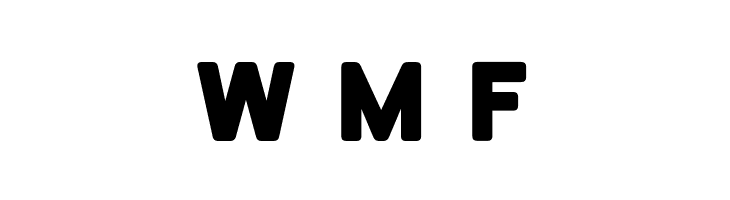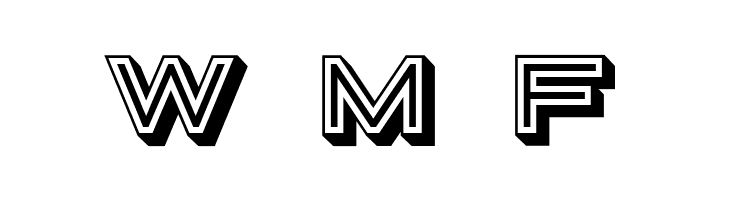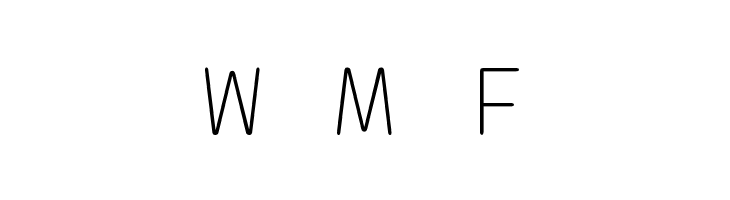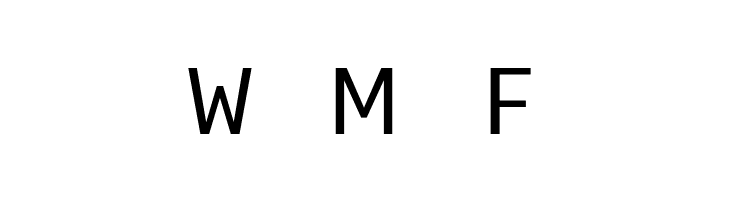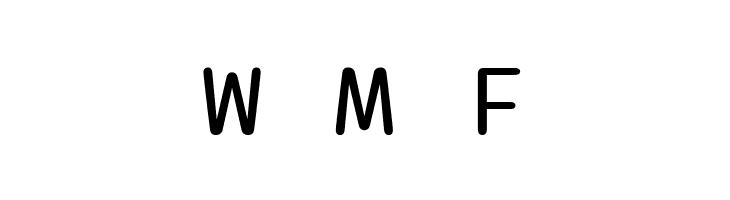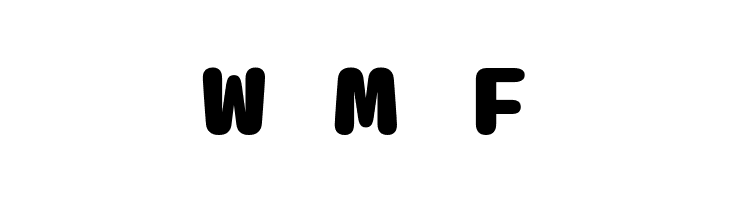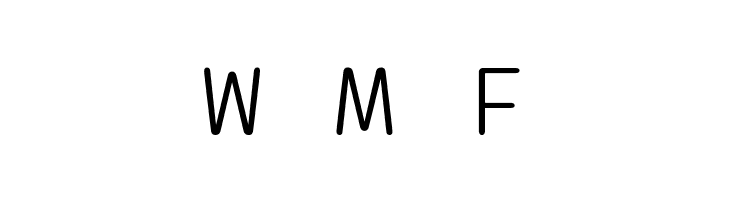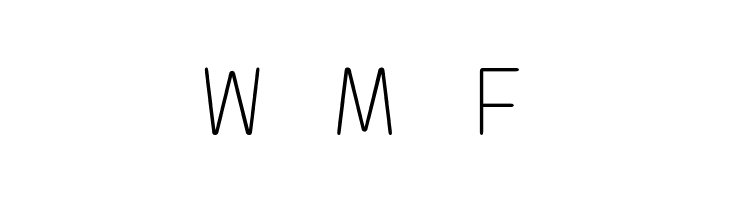
A bold, rounded sans-serif font with smooth curves and uniform stroke width.
A bold, three-dimensional block font ideal for impactful headlines.
A modern, clean sans-serif font with uniform stroke width and balanced spacing.
A clean, modern monospaced typeface with uniform character width and height.
A modern, geometric sans-serif font with rounded edges and excellent readability.
A modern, rounded font with a clean and friendly appearance.
A bold, rounded typeface with a playful and approachable style.
A clean, modern sans-serif font with light weight and excellent legibility.
A modern, geometric font with thin strokes and balanced spacing.